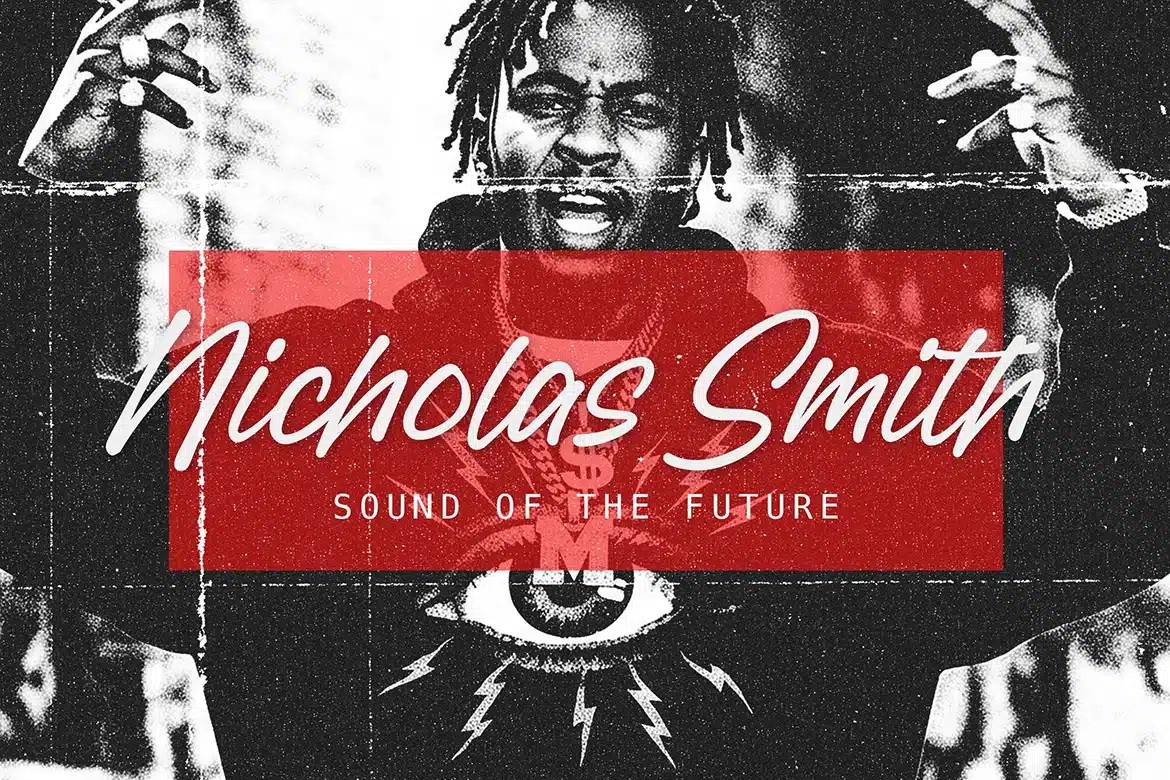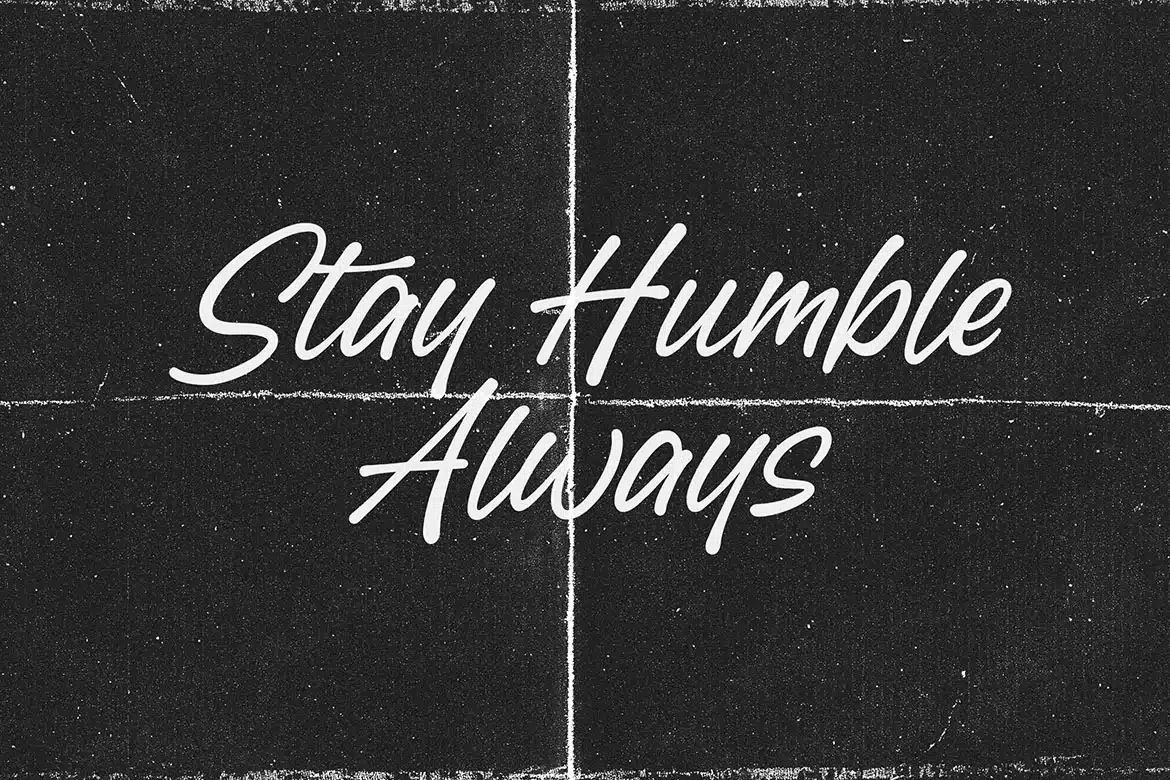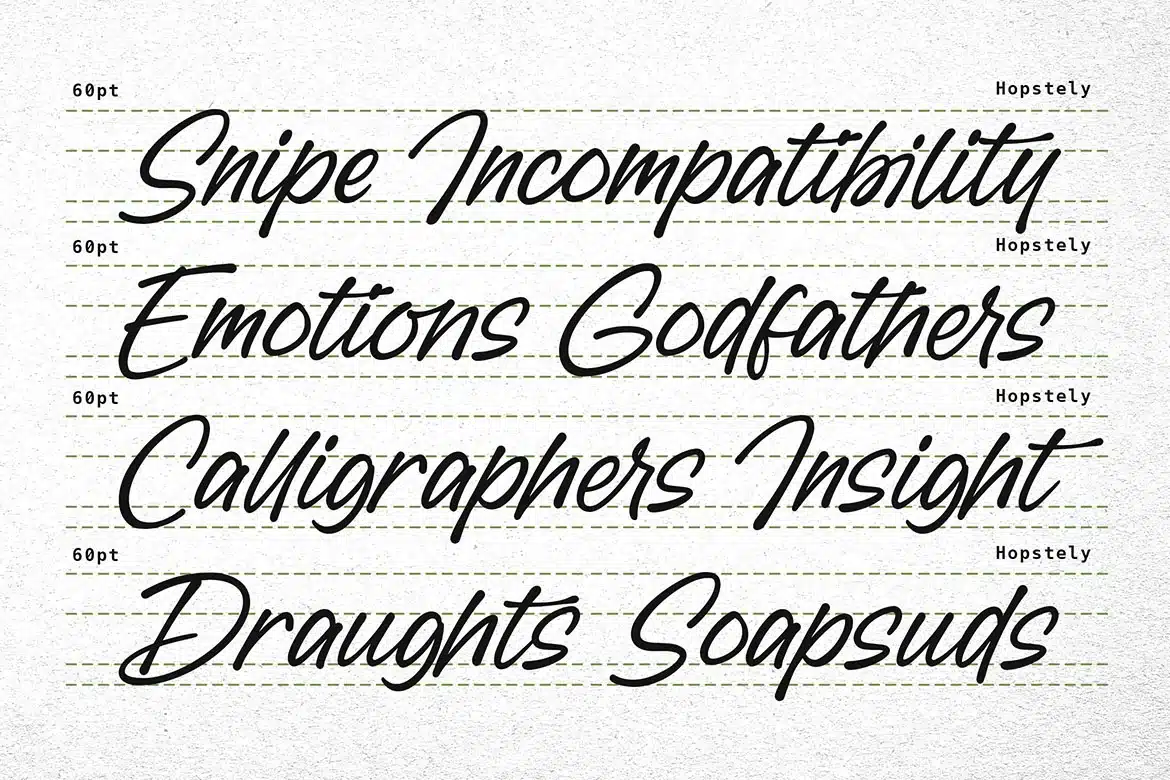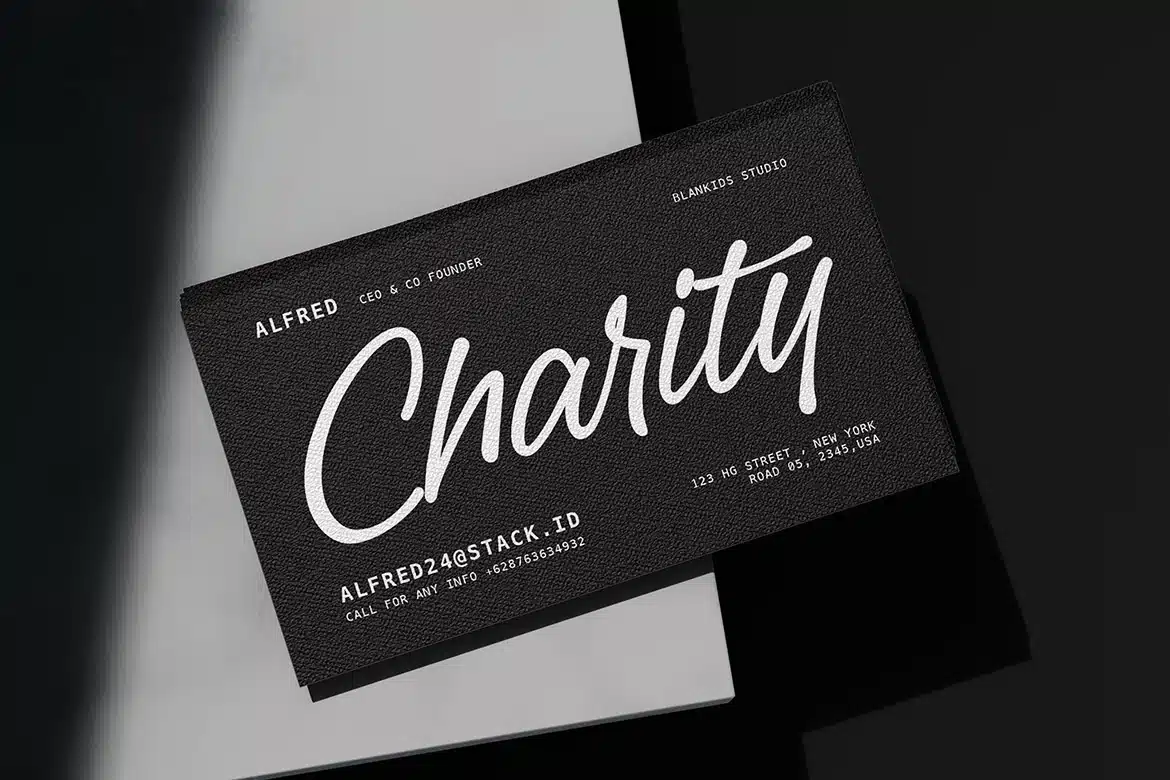
Hopstely a Stylish Handwritten Font
Hopstely Script – Stylish Handwritten Font
Hopstely is a modern handwritten script font designed to bring elegance, personality, and natural flow into your creative projects. Carefully crafted with smooth curves and authentic pen strokes, this font delivers a perfect balance between stylish, casual, and professional looks.
Hopstely is created to make your typography feel warm, friendly, and eye-catching while still maintaining excellent readability. Whether you’re designing branding materials, social media content, or printed products, Hopstely adds a beautiful handwritten touch that instantly elevates your design.
Why Choose Hopstely?
Hopstely is built to be versatile and easy to use across a wide range of creative needs. The natural letter connections and balanced spacing make it ideal for both short headlines and longer text compositions.
This font works perfectly for designers, content creators, branding specialists, and small business owners who want a stylish script font that looks premium and authentic.
- Branding & Logo Design
- Social Media Posts & Instagram Content
- Packaging & Product Labels
- Wedding Invitations & Stationery
- Quotes & Typography Posters
- Business Cards & Marketing Materials
- Website Headers & Blog Graphics
Font Features
- Uppercase & Lowercase Characters
- Smooth Handwritten Script Style
- Clean and Elegant Letterforms
- Easy to Read and Use